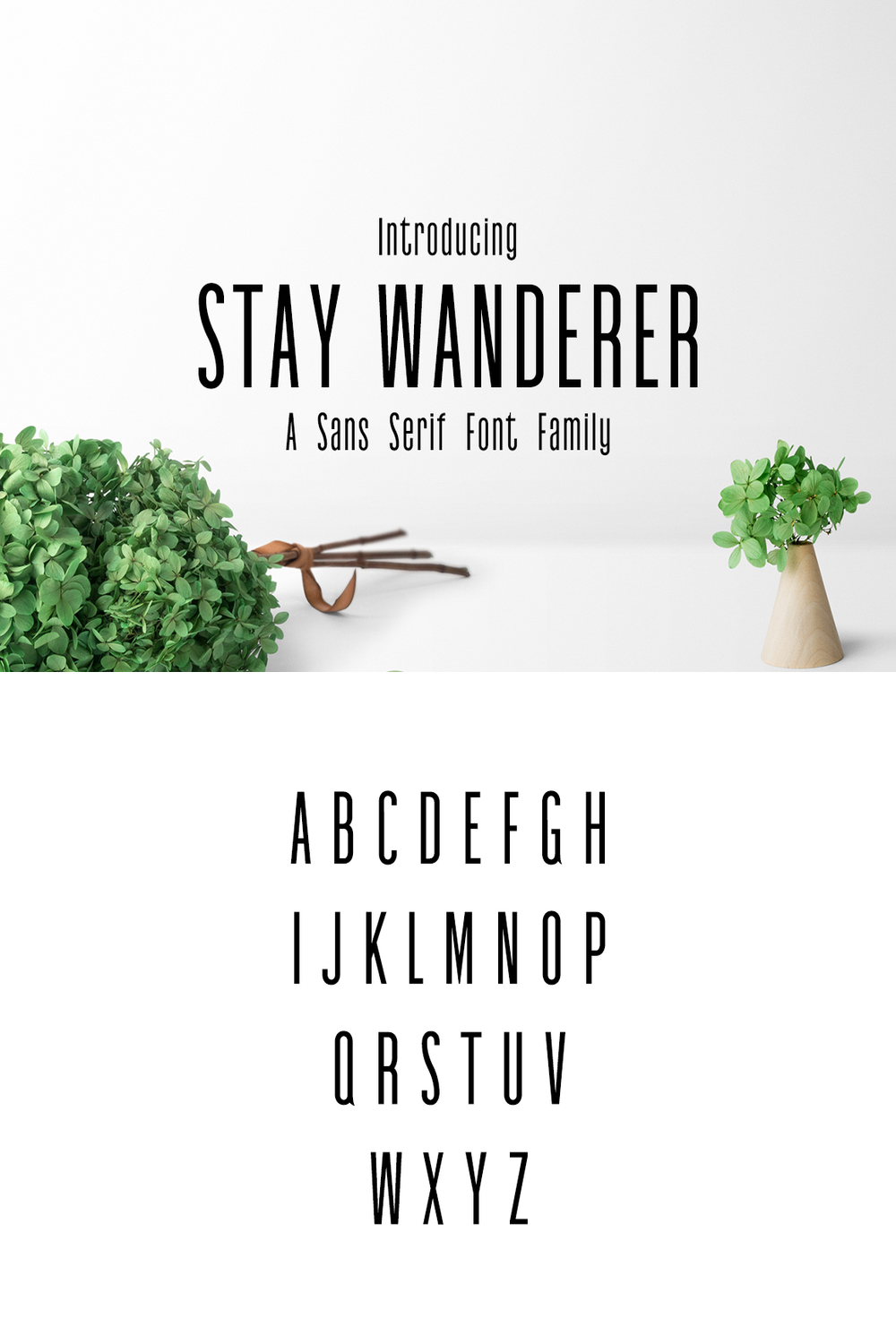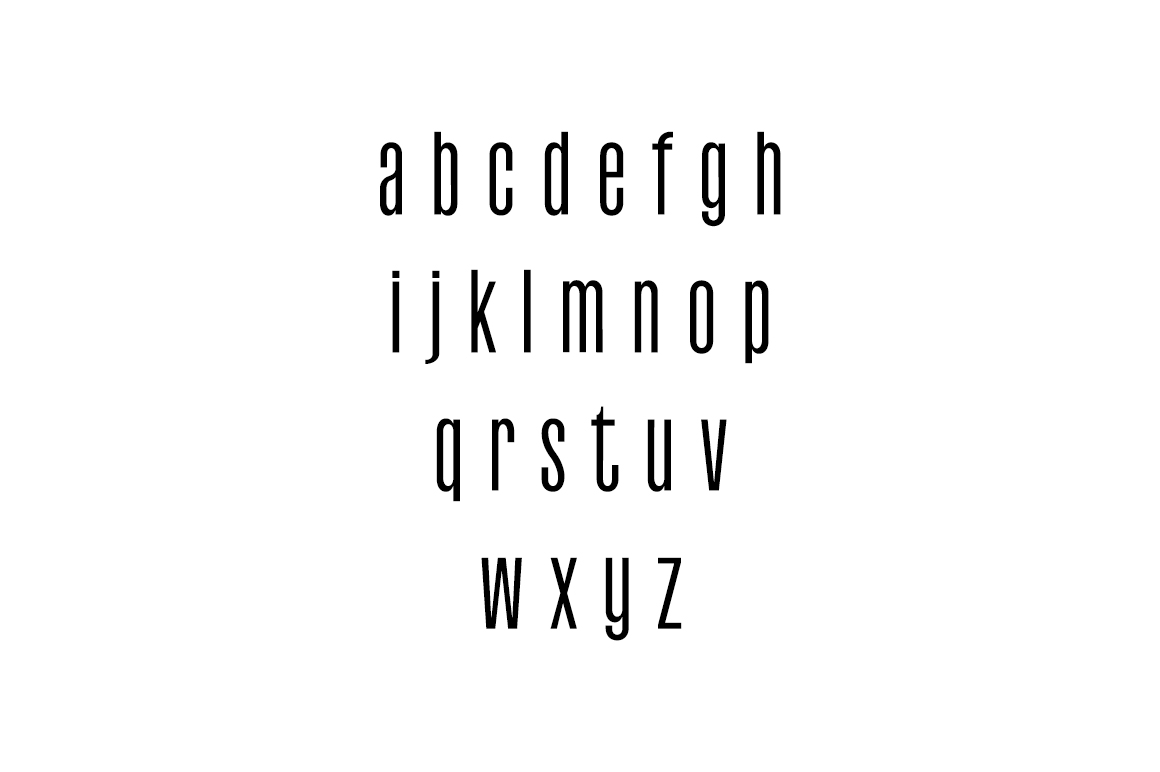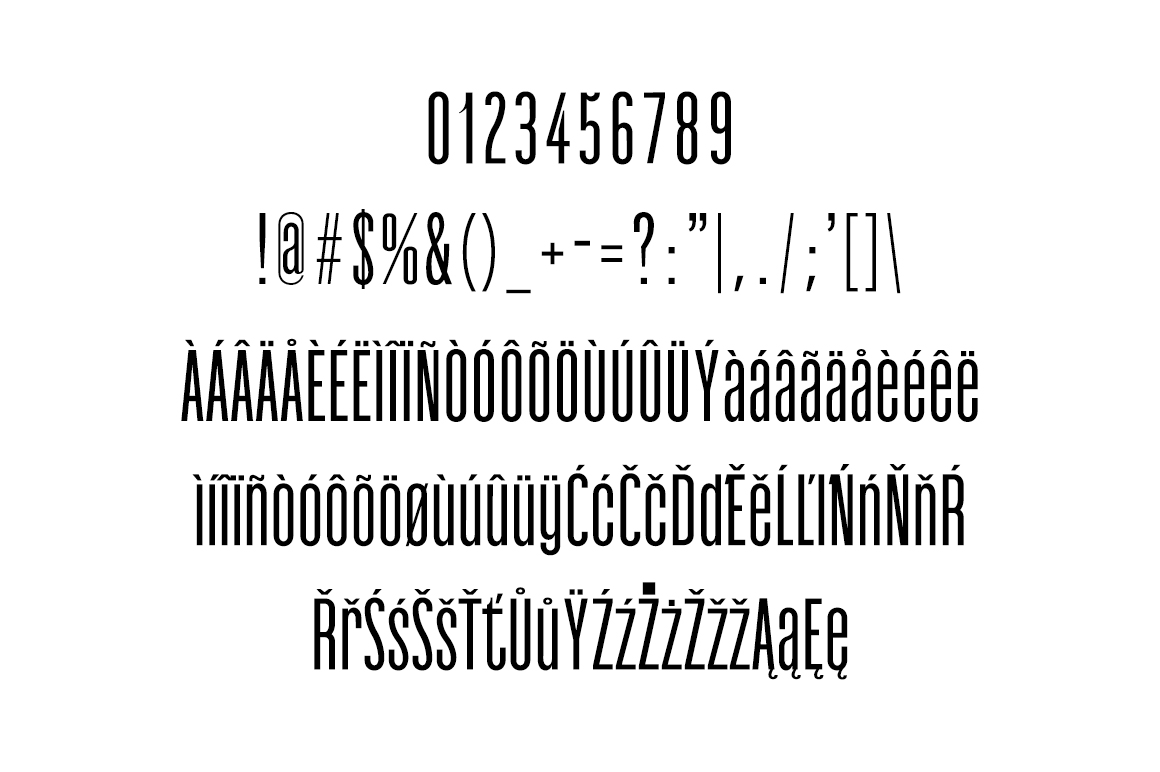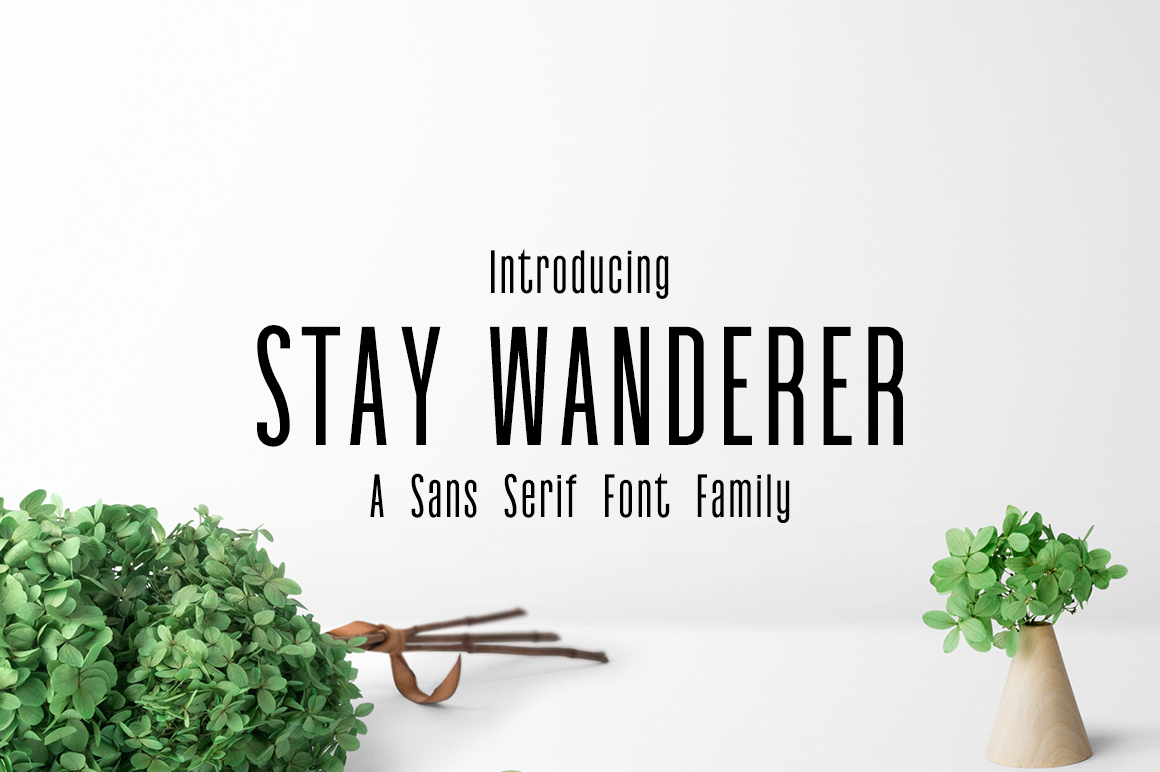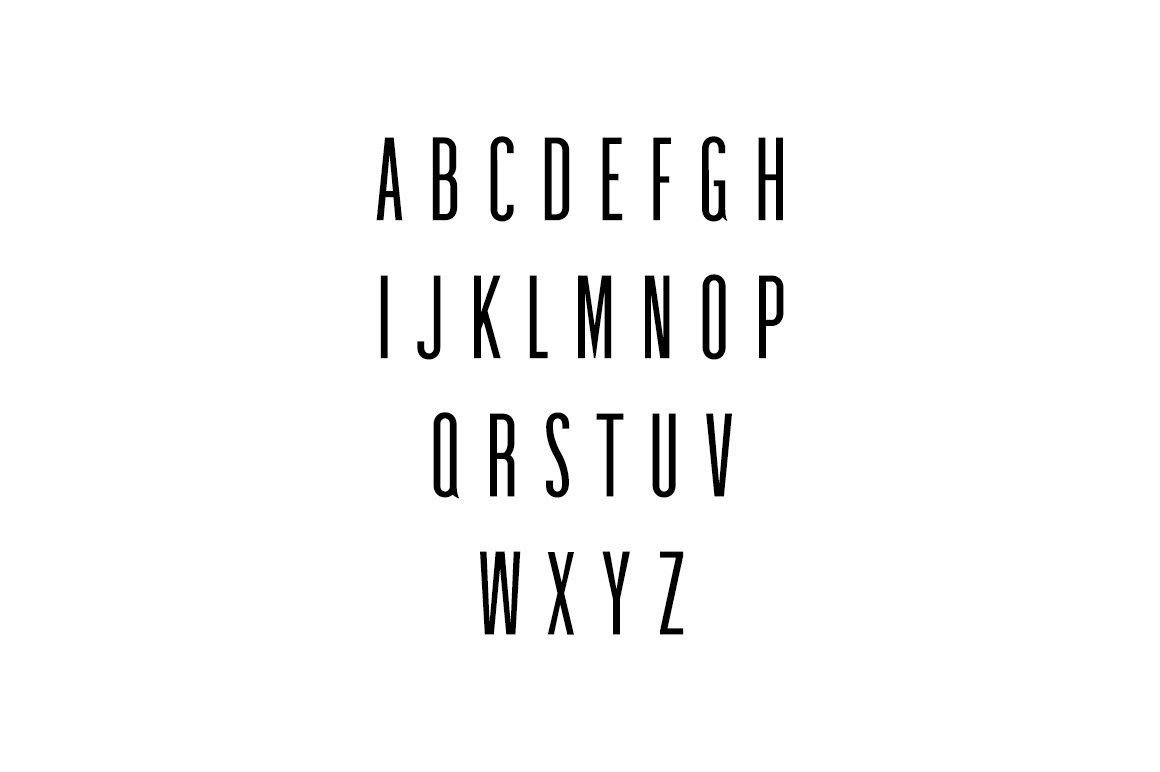
Stay Wanderer Font: A Minimalist Sans Serif for Modern Branding!
About the Stay Wanderer Font
From logos to headlines, the Stay Wanderer Font is the perfect choice for making a lasting impression. A beautiful and simple font, Stay Wanderer is a great font to have. This san serif style is versatile, and is striking without being overbearing.
Add Stay Wanderer, a wonderful sans serif font, to your font collection.